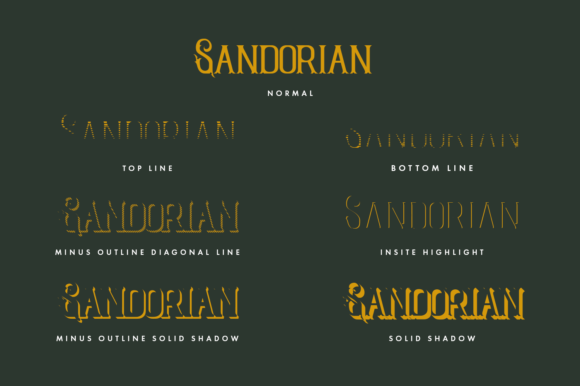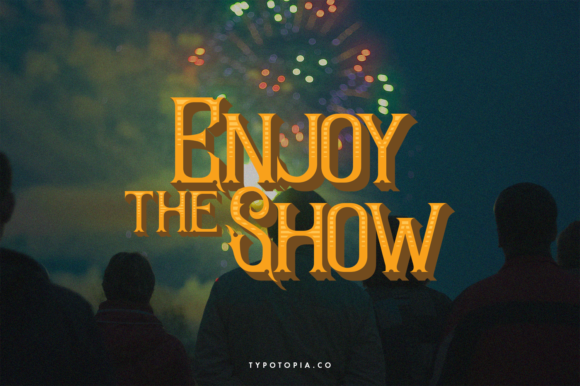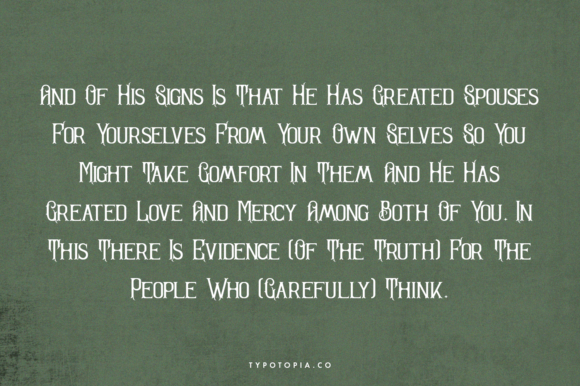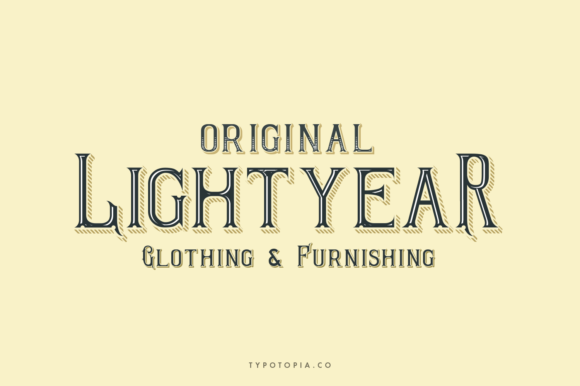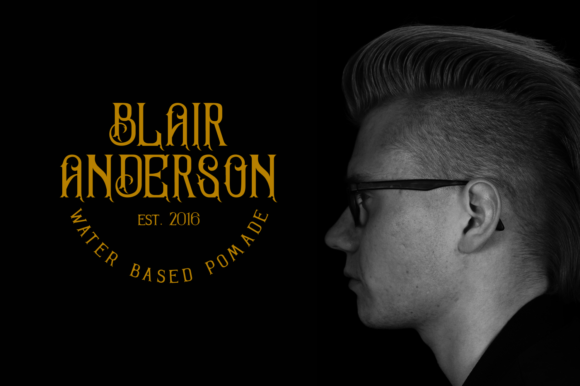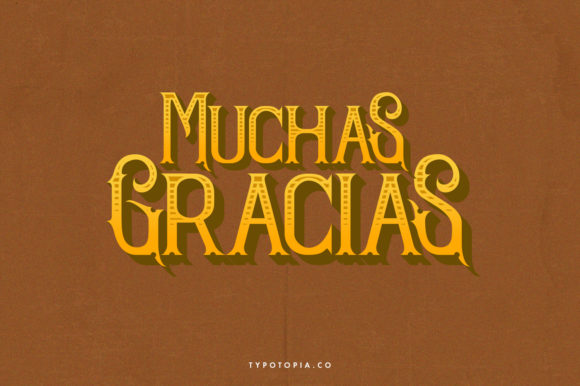
Introduction to Sandorian Font
Sandorian is a cool and fun display font with a unique style.
Get inspired by its bold feel .
Key Features of Sandorian Font
Why Choose Sandorian Font?
Sandorian Font offers exceptional quality and versatility, making it a valuable addition to your design toolkit. Whether you’re creating for personal projects or commercial use, Sandorian Font delivers professional results.